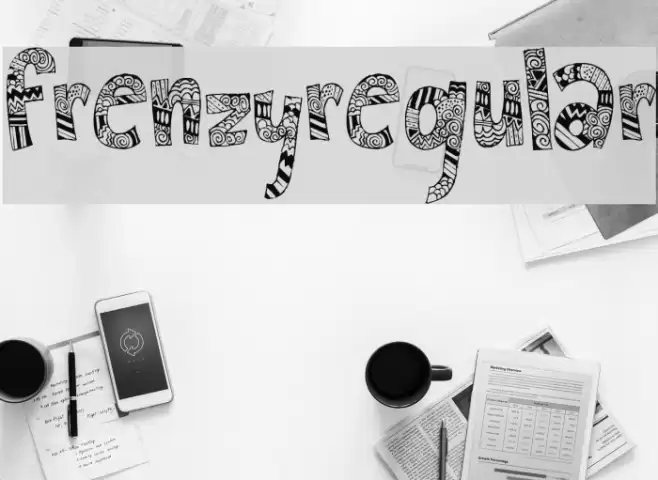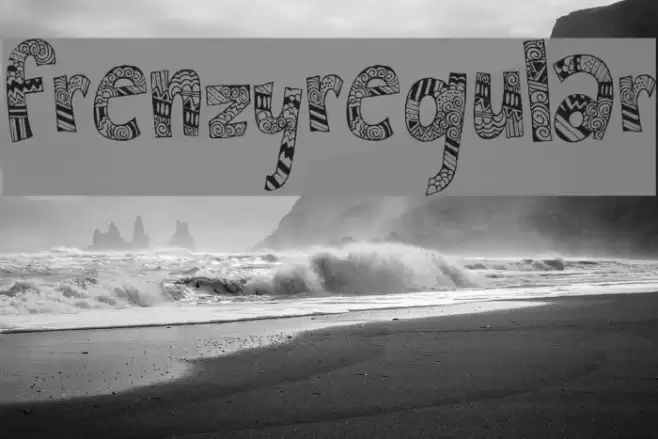
Frenzy-Regular Font
Frenzy-Regular Description
This font is a vibrant and playful decorative style, featuring intricate patterns within each character. The letters are filled with a variety of geometric and abstract designs, creating a lively and dynamic appearance. Each character is unique, with swirling lines, dots, and zigzags that add a sense of movement and energy. The overall look is bold and eye-catching, making it ideal for creative and artistic projects. The font's whimsical nature makes it perfect for use in designs that require a touch of fun and creativity.
A playful and decorative font with intricate patterns and bold designs from Uncategorized fonts.
- Proposed Projects: Ideal for children's book covers, creative posters, party invitations, and artistic branding.